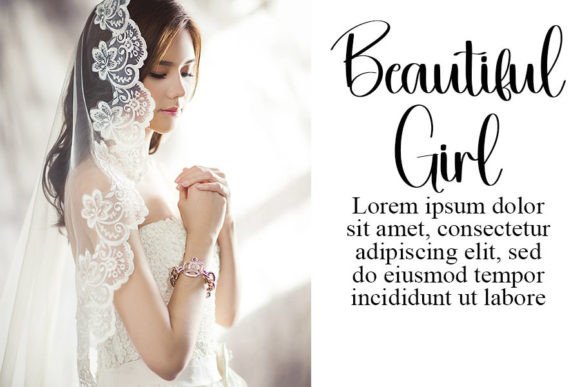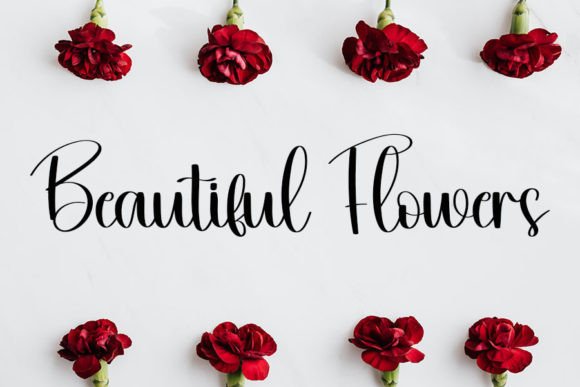
About Beautiful Font Download
The Beautiful Font Download is a fun and friendly handwritten script that brings joy and creativity to your designs. With smooth strokes and playful charm, it is the perfect choice for crafts, posters, invitations, or digital design. This font combines readability with warmth, making it a favorite for both personal and professional projects.
A Fun Script with Friendly Style
The Beautiful script font blends handwritten personality with modern design. As a result, it feels natural, stylish, and easy to use. Furthermore, it adapts well to many different contexts, from small greeting cards to large display posters.
Handwritten fonts always make stationery designs more meaningful. The Beautiful Font is perfect for wedding invitations, thank you cards, birthday notes, and holiday greetings. Because of its friendly flow, each message feels polished and unique. In addition, it gives cards a warm, joyful energy.
Branding and Logo Design with Beautiful Font
Typography is key in branding. The Beautiful handwritten font is great for boutique logos, packaging, and marketing campaigns. Its fun, stylish strokes create a professional yet approachable image. Therefore, it is especially suitable for creative and lifestyle brands that want to connect with audiences.
Posters, Titles, and Creative Displays
The Beautiful Font Download is also excellent for posters, banners, book covers, and editorial layouts. It keeps its clarity across different sizes while adding a friendly handwritten charm. Consequently, it is a reliable font for designers who want creativity and readability together.
In the online space, fonts need to grab attention quickly. The Beautiful typeface integrates smoothly into Instagram posts, YouTube thumbnails, Pinterest boards, and blogs. Because of its playful handwritten rhythm, it makes digital content look modern and inviting.
Why Designers Choose Beautiful Typeface
Designers value fonts that combine beauty and practicality. While some handwritten styles can be decorative but hard to read, the Beautiful handwritten script keeps its clarity without losing its charm. This balance makes it dependable for personal crafts and professional design. Moreover, its timeless form ensures it stays stylish for years.
Add Joyful Charm to Your Projects Today
If you want a handwritten script that feels fun, warm, and versatile, the Beautiful Font Download is the perfect choice. From invitations and greeting cards to posters, logos, and digital designs, it enhances every project with friendly energy. Finally, download Beautiful today and let your creative work shine with handwritten charm.